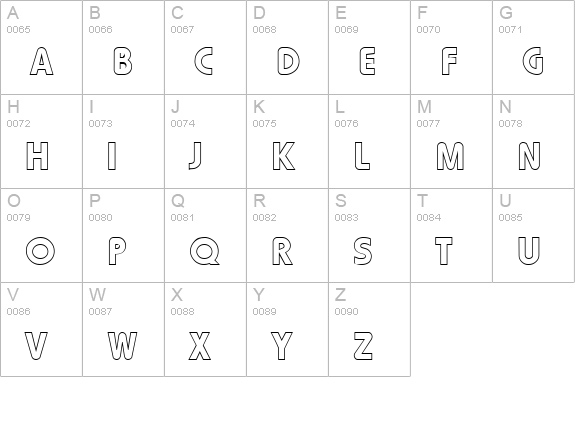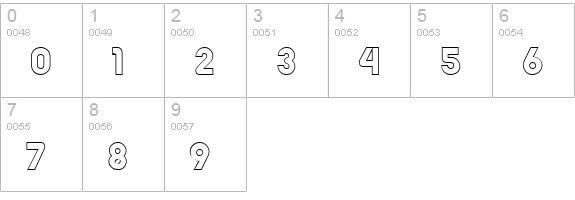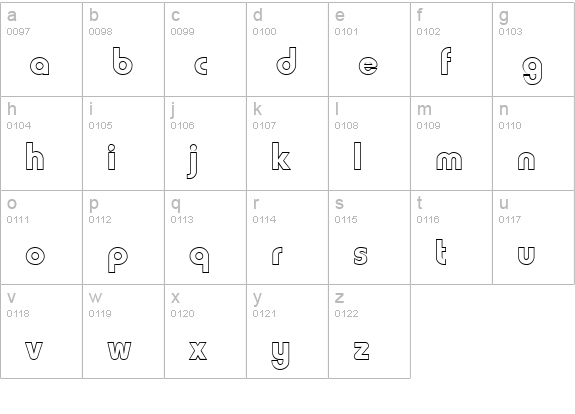
CremonaOpen Font Details
CremonaOpen is a modern and stylish font that offers a perfect blend of sophistication and readability. With its elegant design and clean lines, this font is ideal for a wide range of projects, from branding to marketing materials. The versatility of CremonaOpen makes it a great choice for both digital and print applications. One of the best things about CremonaOpen is that it is completely free to download. You can get your hands on this beautiful font at FontsMarket.com, where you can access a wide selection of high-quality fonts for all your design needs. So why wait? Add CremonaOpen to your font collection today and elevate your projects with its timeless appeal.